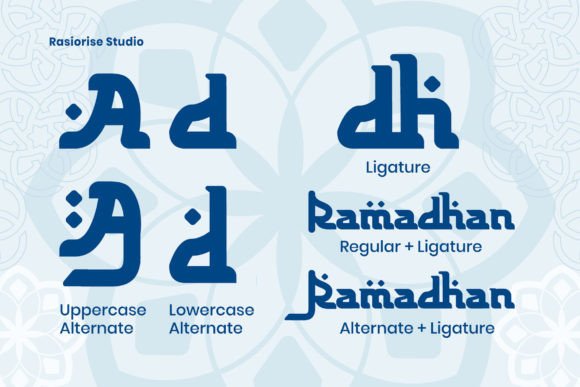
Introducing Binrabam Font: A Modern Arabic Typeface
In the realm of typography, fonts play a crucial role in conveying the message and aesthetic of a brand. For those searching for an Arabic font that embodies modernity and cultural essence, the Binrabam Font is an excellent choice. Inspired by contemporary Arabic font styles, Binrabam combines traditional elements with a modern twist, making it an ideal choice for various branding projects.
Key Features of Binrabam Font
- Modern Arabic Design: Binrabam’s design is deeply rooted in Arabic typography, incorporating modern elements to give it a fresh and contemporary look.
- Regular Character Types: The font includes a range of regular character types, ensuring clarity and legibility across different applications.
- Alternate Uppercase Characters: To add versatility, Binrabam offers alternate uppercase characters, allowing designers to experiment with different styles and create unique visual identities.
Versatile Applications of Binrabam Font
Binrabam’s adaptability makes it suitable for a wide array of branding projects, including:
- Flyers: Create eye-catching flyers that capture the essence of your message with Binrabam’s clear and stylish letters.
- Banners: Whether for events, promotions, or informational purposes, Binrabam ensures your banners stand out.
- Logos: Establish a strong brand identity with a logo that utilizes Binrabam’s unique blend of modernity and Arabic heritage.
- Posters: From advertising to informational posters, Binrabam’s font styles make your content more engaging.
- Product Packaging: Elevate your product’s presentation with elegant and culturally resonant typography.
- Stationery: Enhance your brand’s professional image with Binrabam’s stylish appearance on letterheads, business cards, and more.
- Wedding Invitations: Add a touch of sophistication and cultural beauty to your wedding invitations.
The Impact of Typography on Branding
Typography is a cornerstone of branding, influencing how a brand is perceived by its audience. The choice of font can convey a brand’s personality, values, and message more effectively than words alone. For brands looking to connect with Arabic-speaking audiences or simply to incorporate an elegant, modern Arabic font into their branding strategy, Binrabam offers a compelling solution.
Effective typography can:
- Enhance brand recognition and recall.
- Convey brand values and personality.
- Improve readability and user experience.
- Set a brand apart from its competitors.
Why Choose Binrabam Font?
Binrabam Font stands out for several reasons:
- Cultural Relevance: It is deeply rooted in Arabic typography, making it an excellent choice for brands targeting Arabic-speaking audiences.
- Modern Aesthetic: Its contemporary design ensures that your brand appears modern and forward-thinking.
- Versatility: With a range of character types and alternate uppercase characters, Binrabam offers flexibility for various design applications.
- Ease of Use: Designed to be legible and clear, Binrabam enhances readability across different media.
Binrabam Font is a versatile and modern Arabic typeface that offers a unique blend of traditional and contemporary design elements. Its suitability for a wide range of branding projects, from flyers and banners to logos and product packaging, makes it an invaluable asset for designers and brands alike. By choosing Binrabam, you can ensure that your brand’s message is conveyed with elegance, clarity, and cultural relevance.